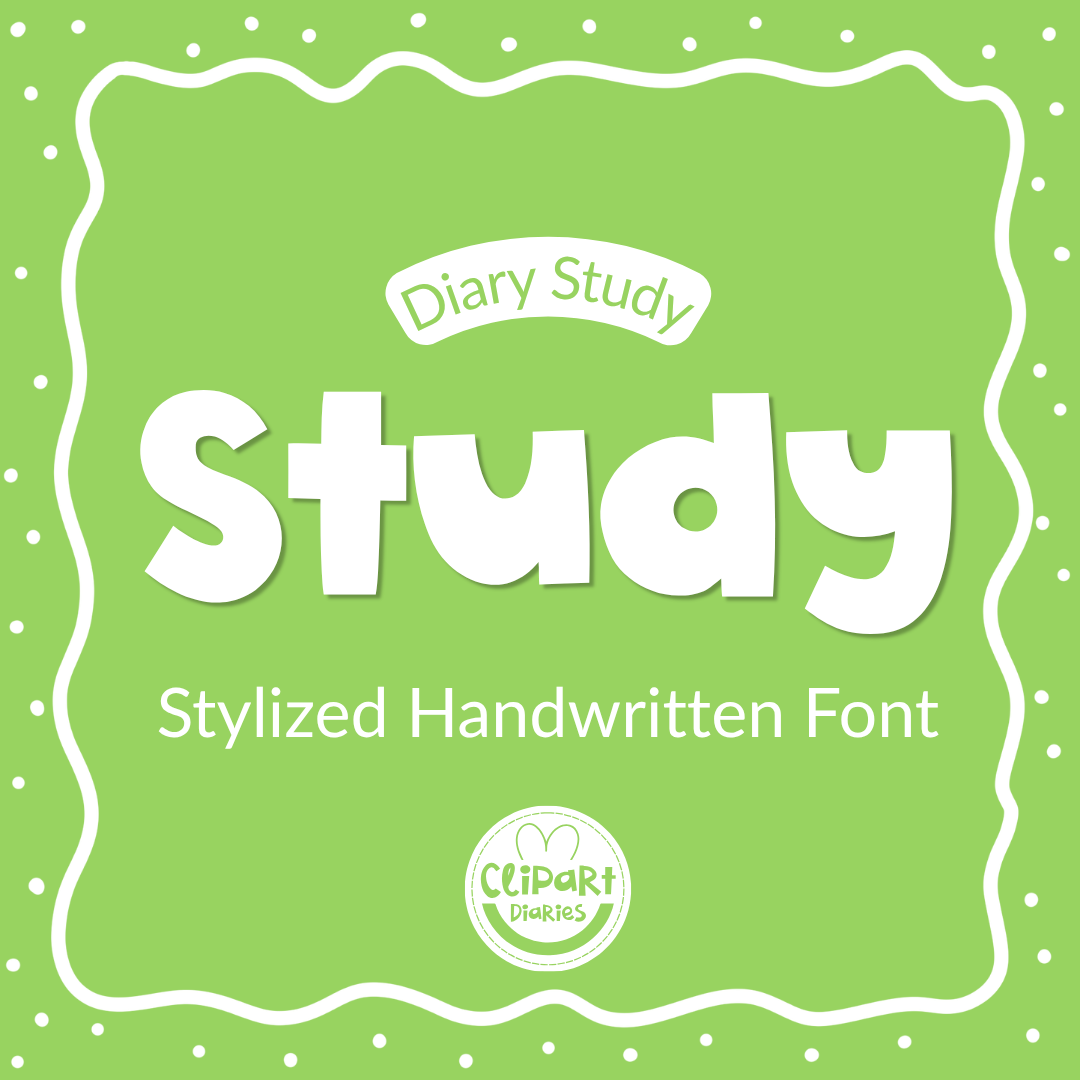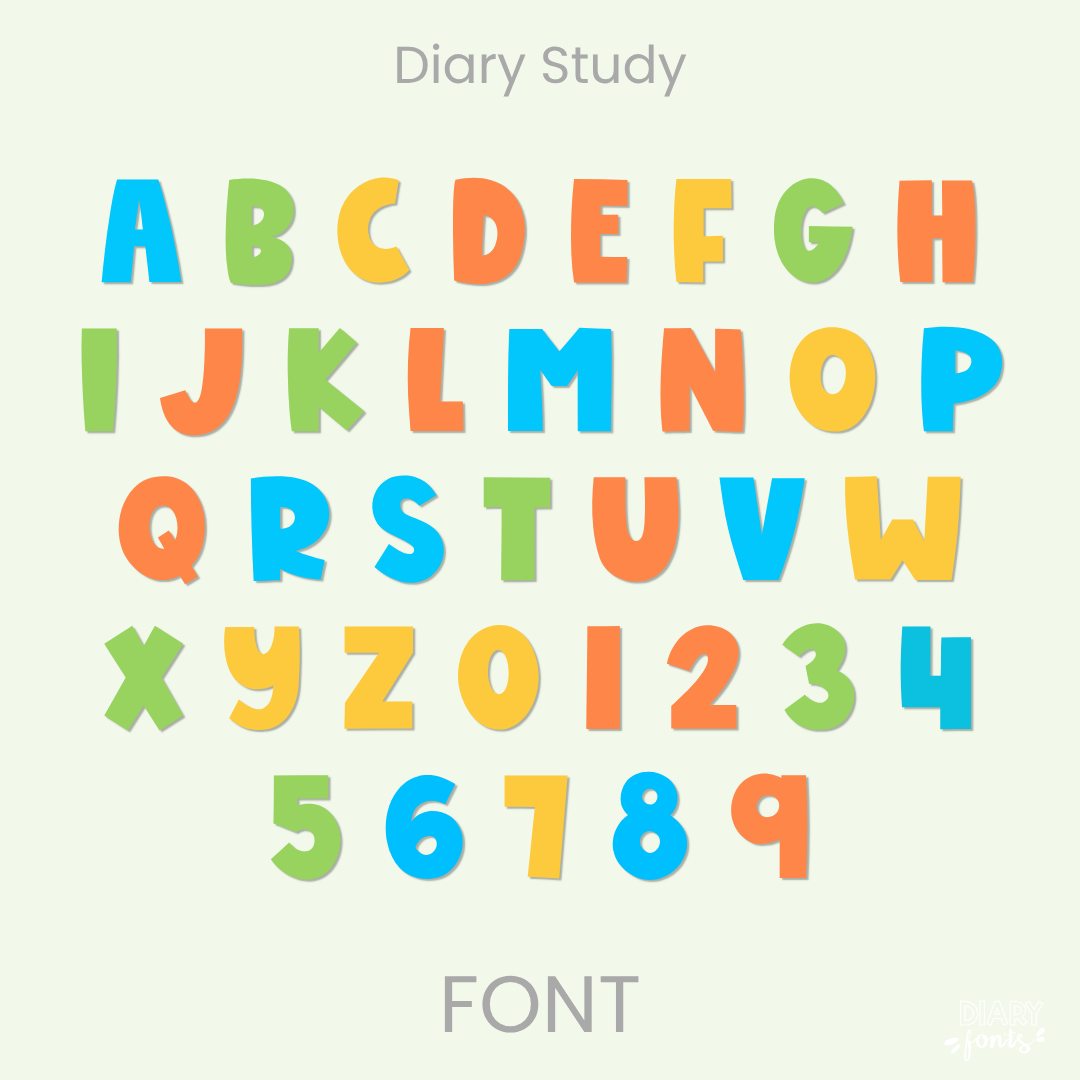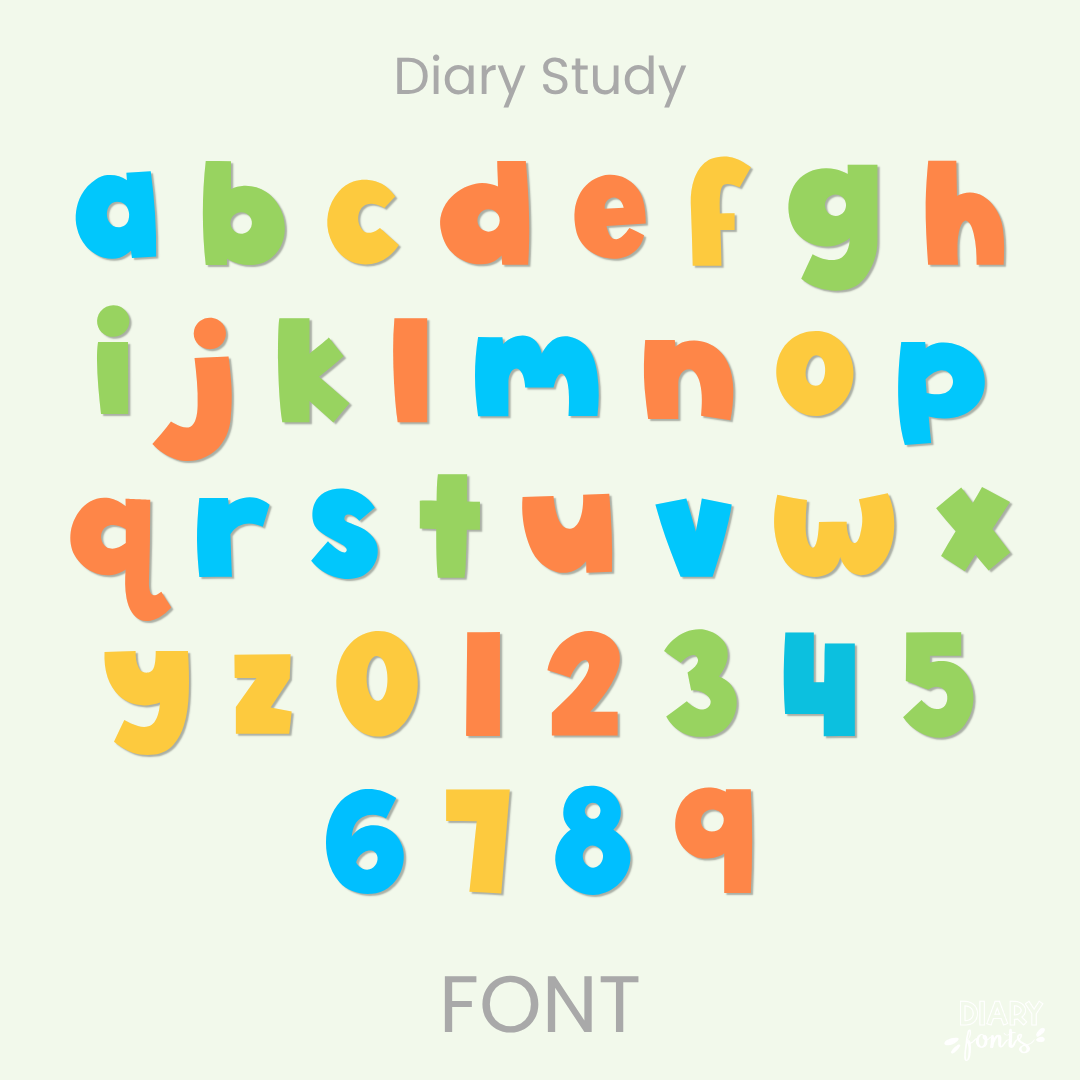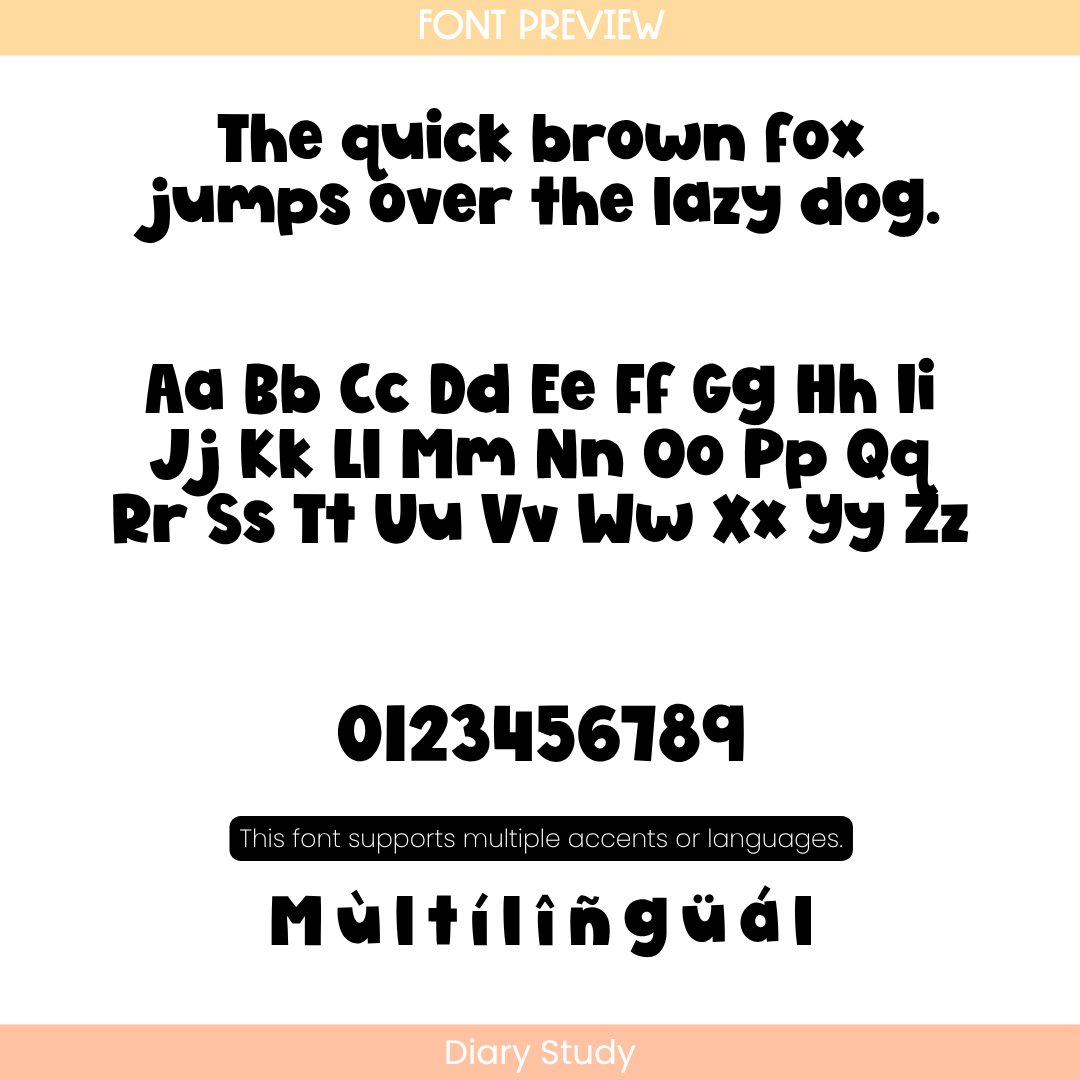
Diary Study – Playful Chunky Font
Diary Study is that ultra-bold, chunky bubble font and playful classroom print typeface you need to make your bulletin board headings and resource covers stand out with serious style!
If you’ve been looking for a go-to bold handwritten font that packs a massive punch but keeps your layouts looking incredibly tidy, Diary Study is about to become your new absolute favorite. It features thick, heavy-weighted cutout letterforms with smooth, chunky lines that sit perfectly grounded along the baseline. Because these hand-drawn letters are nice and bold with plenty of generous breathing room between them, it completely eliminates visual clutter, making it an exceptionally clear and legible worksheet typography choice for your sweet students.
It is the absolute perfect choice for designing high-impact bulletin boards, bold presentation slide titles, custom subject covers, and clean instructional slide fonts where you want a fun, modern vibe. Inside the download, you’ll get a full set of thick uppercase and lowercase letters, solid matching numbers, and multi-accent marks for complete multilingual support. It drops right into Canva, MS Office, or Adobe on your desktop, and pairs beautifully with Procreate and GoodNotes on your iPad. Whether you’re prepping daily activities for your own sweet classroom or designing fresh new commercial-use educational resources for your online teacher shop, this chunky display heading font adds a touch of confident, friendly style to your creative toolkit.